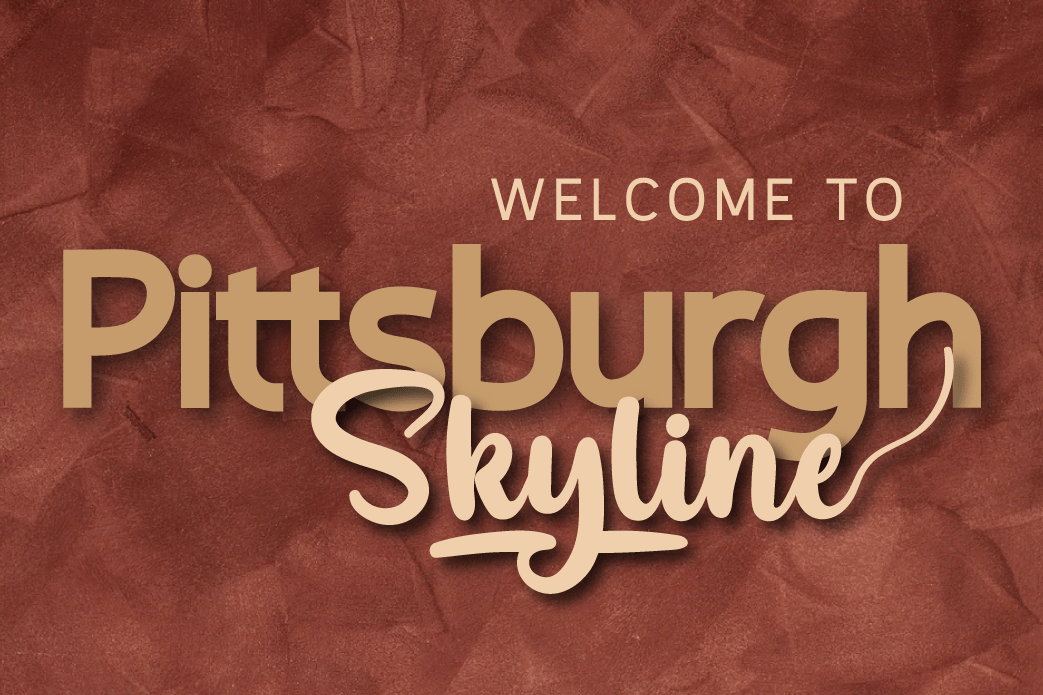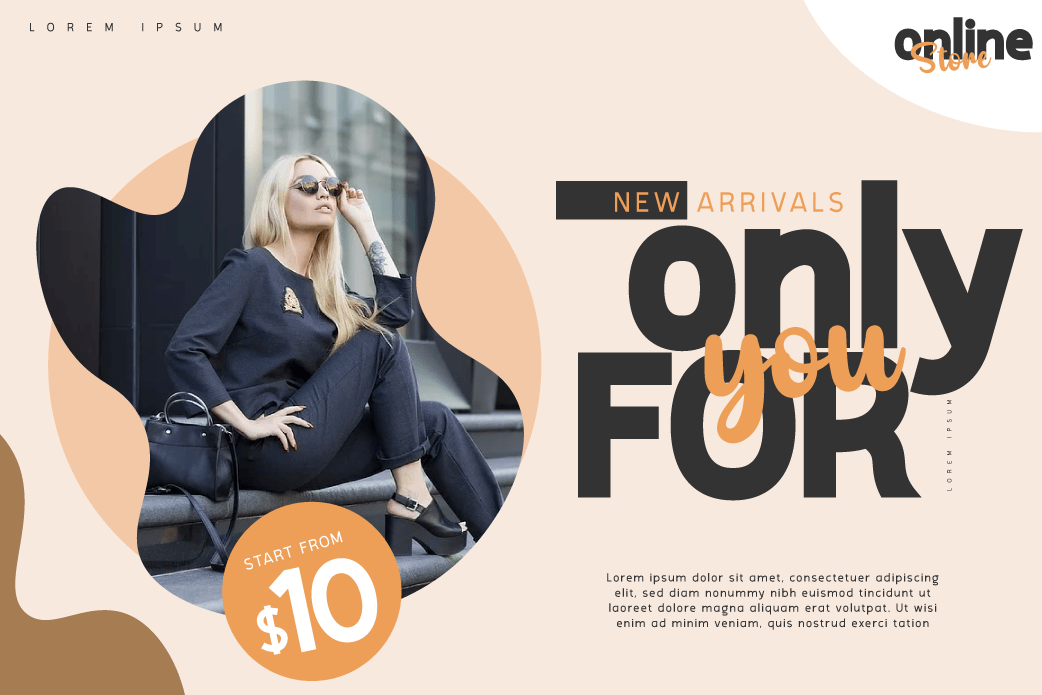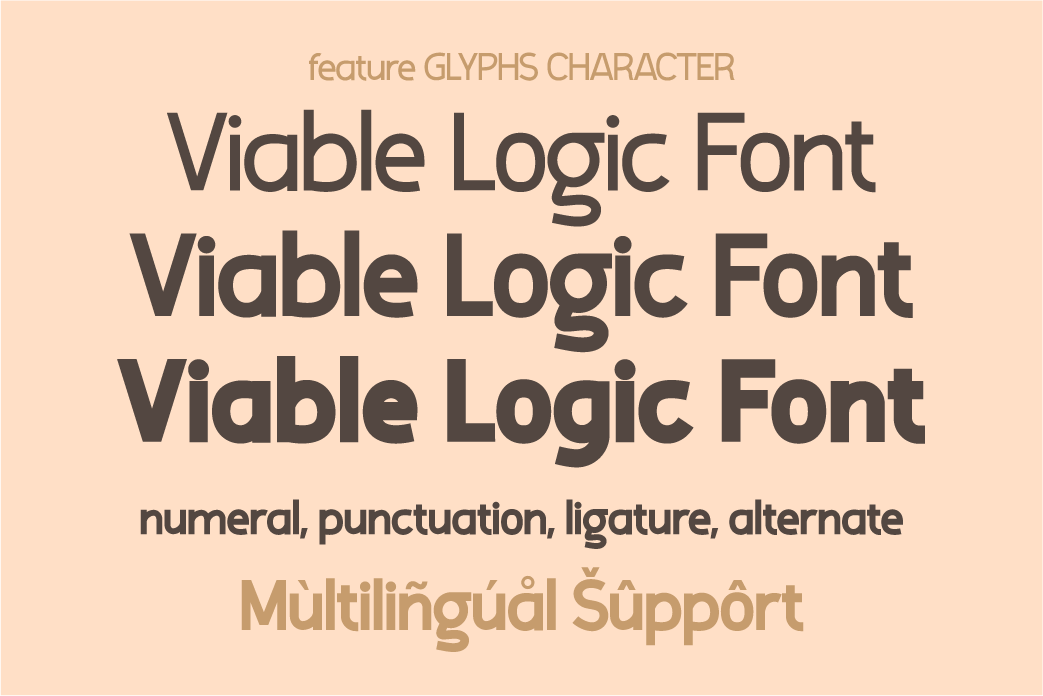
Viable Logic
Introducing the Viable Logic font, which has a neat and clean character
new face sans serif fonts, in response to the need for innovative and new designs, for that this sans serif font family has different characters namely bold, thin and regular.
This font is simple yet neat and elegant, the design of this typeface gives it a clean, modern look and a unique style to help give it a captivating look when you use it.
This font is perfect for strong text with displays for a wide variety of branding, advertising, posters, banners, packaging, news headlines, magazines, websites, logo design, and more.
• Fonts include multilingual support for; Afrikaans, Albanian, Croatian, Czech, Danish, Dutch, English, Estonian, Finnish, French, German, Hungarian, Italian, Norwegian, Polish, Portuguese, Slovak, Slovenian, Spanish, Swedish